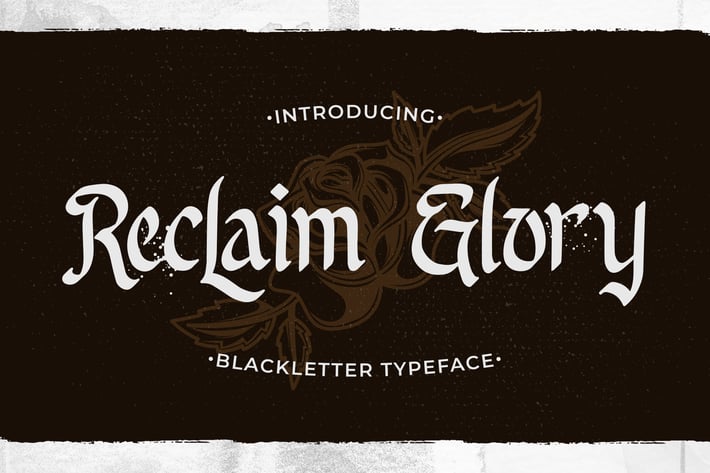
Reclaim Glory – Blackletter Typeface
Reclaim Glory is a cool, gothic, and imposing blackletter font.
This distinct font could be added to a wide spectrum of creations, such as labels, branding, logos, and so on.